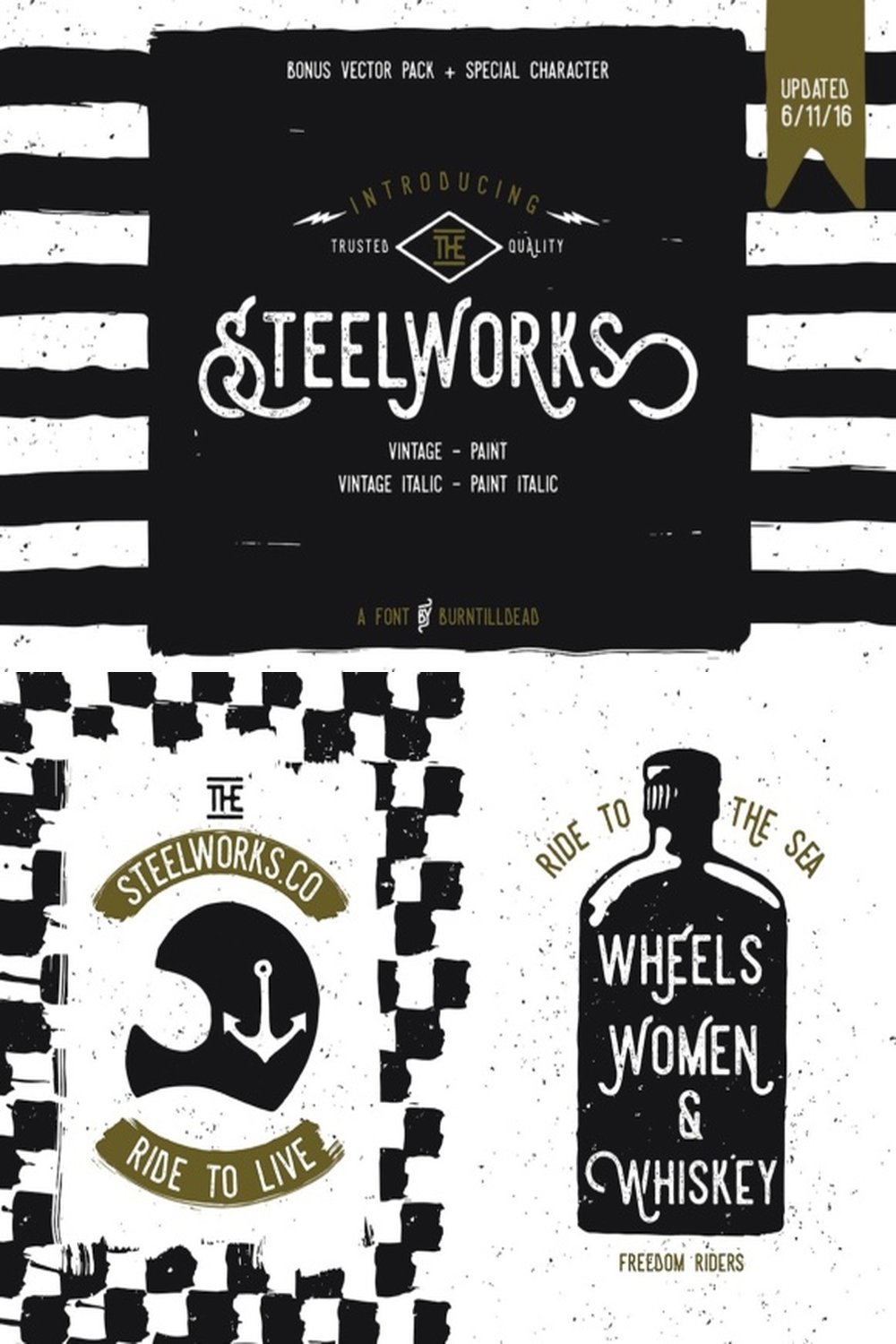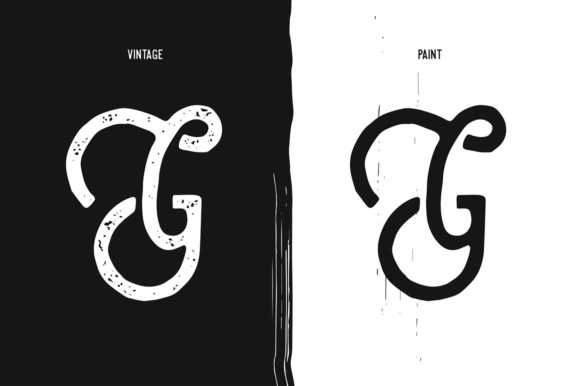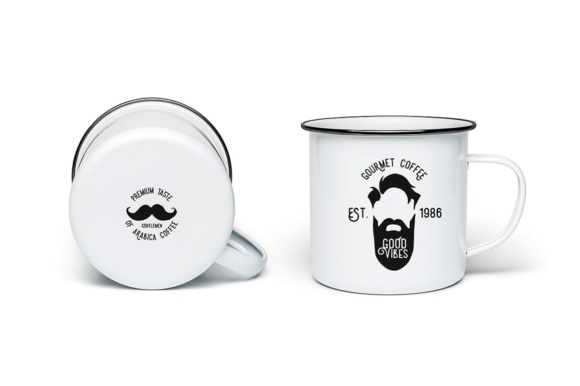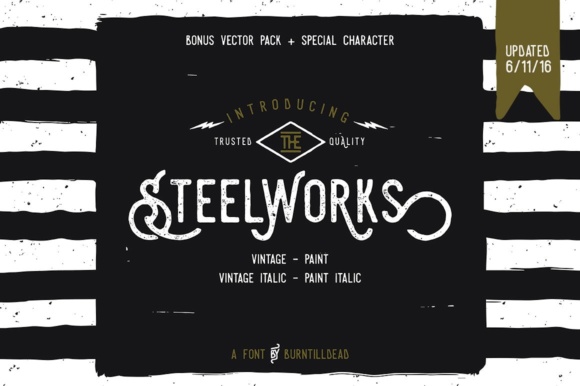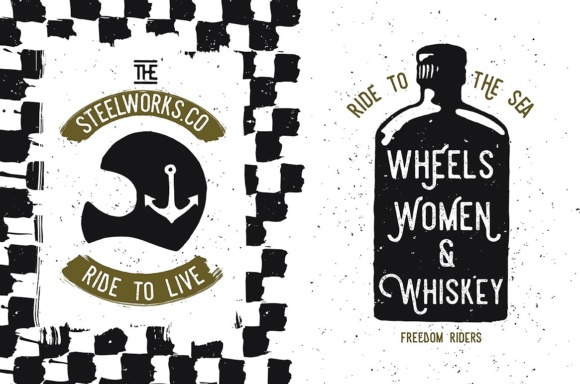
Steelworks Font: A Vintage Brush Font for Bold & Rustic Logo Design
About the Steelworks Font
Introducing the Steelworks Font, a beautifully crafted typeface designed to elevate your creative projects. Steelworks is inspired from ink & tints and it’s manual hand drawn with a brush to make it look messy but natural. Steelworks has alternate glyphs and ligatures that could help you make stylish designs. Each glyph is made manually with very much diligent and consistency.